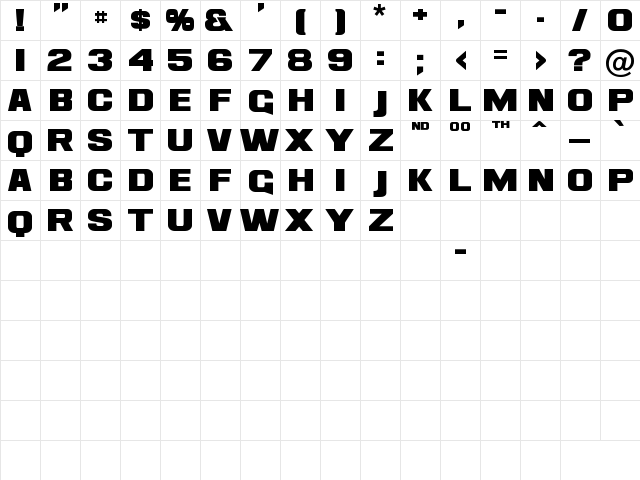
Ash Regular Font Preview
Ash Regular
Ash Regular Font Details
| Designer | Billy-Joe Lee |
Design Context for Ash Typeface
Ash takes a measured approach to typography — its balanced proportions and neutral character make it a reliable workhorse for both digital and print work.